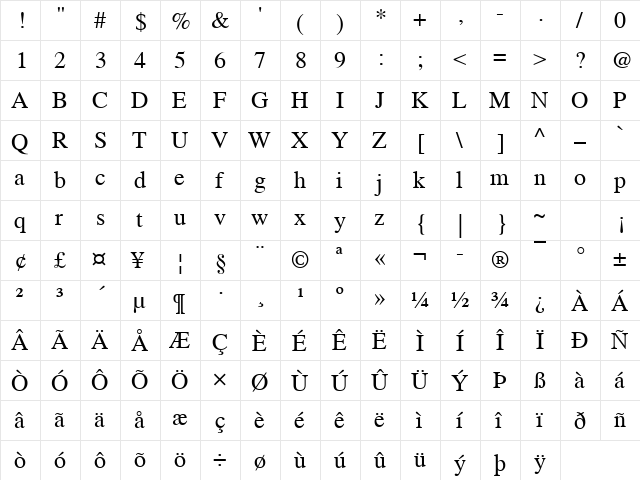
Times Roman
Design Context for Times Typeface
Times takes a measured approach to typography — its balanced proportions and neutral character make it a reliable workhorse for both digital and print work.